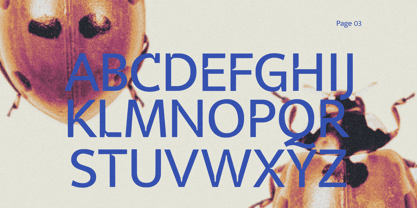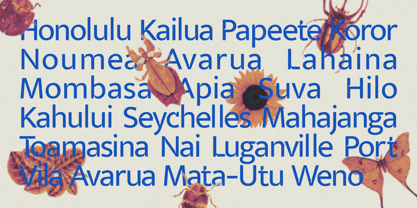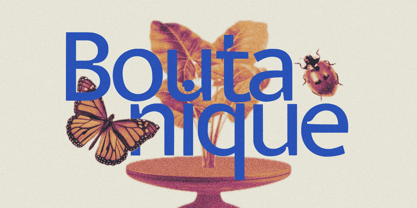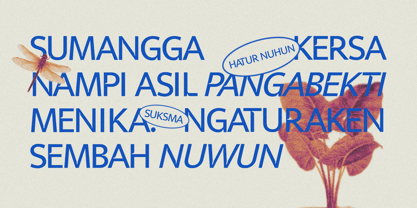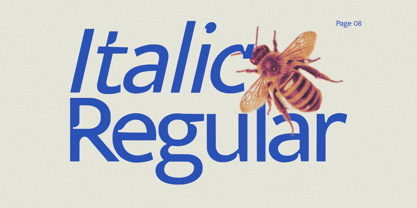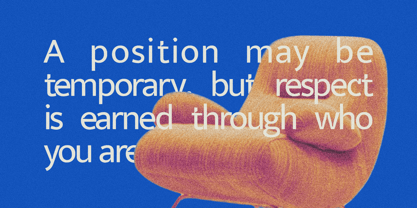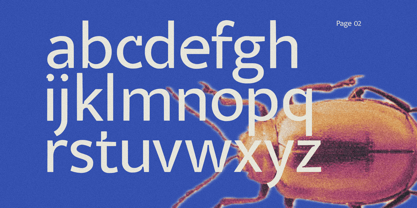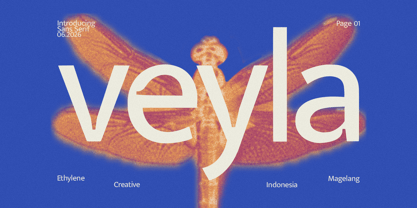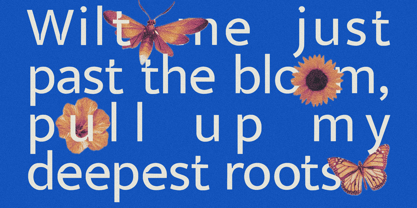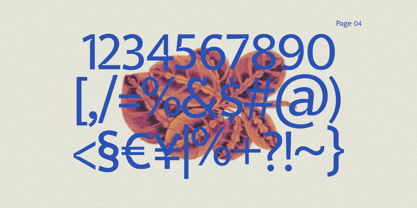
Veyla
by Ethylene
The Veyla Font Family was designed by Cherly Nugroho and published by Ethylene. Veyla contains 2 styles and family package options. More about this family
Veyla is a contemporary display typeface that merges the clarity of modern sans serif design with the sophistication of high-fashion editorial typography.
Built on a clean sans serif foundation, Veyla introduces elegant contrast, sculpted curves, and distinctive serif-inspired details that create a refined yet unconventional personality. The result is a typeface that feels modern, luxurious, and highly expressive without losing its readability.
One of Veyla's defining characteristics is its expressive inktrap system. Rather than functioning solely as technical ink traps, these carefully crafted cuts become part of the visual identity itself. They create moments of tension, rhythm, and sophistication throughout the letterforms, giving the typeface a unique contemporary voice while enhancing clarity at display sizes.
The combination of modern structure, elegant proportions, and distinctive inktrap detailing makes Veyla ideal for luxury branding, fashion campaigns, beauty products, editorial layouts, packaging, art direction, and premium visual identities.
Designers: Cherly Nugroho
Foundry: Ethylene